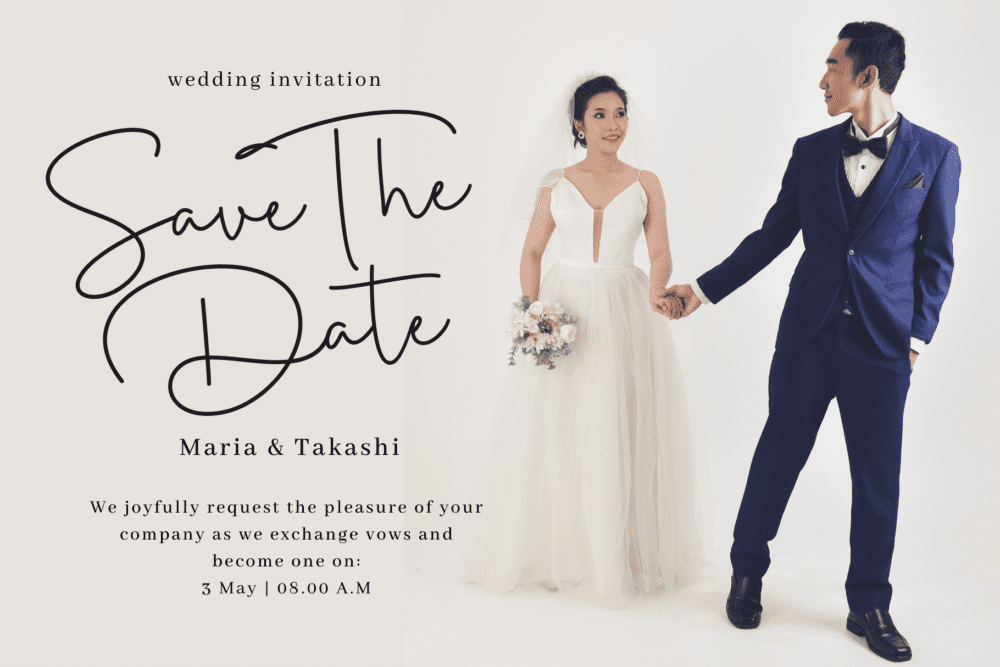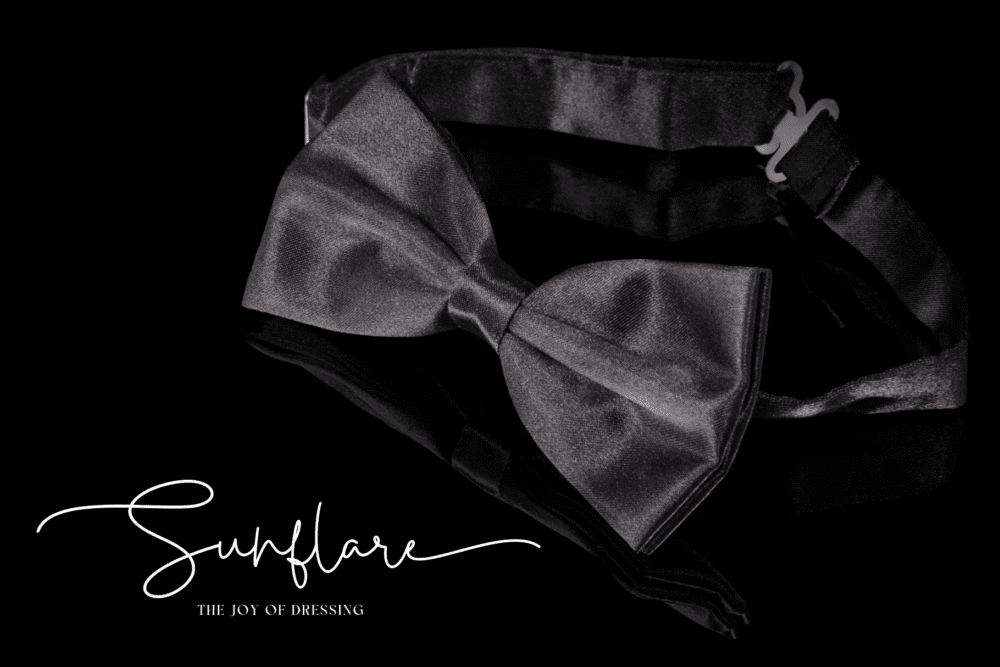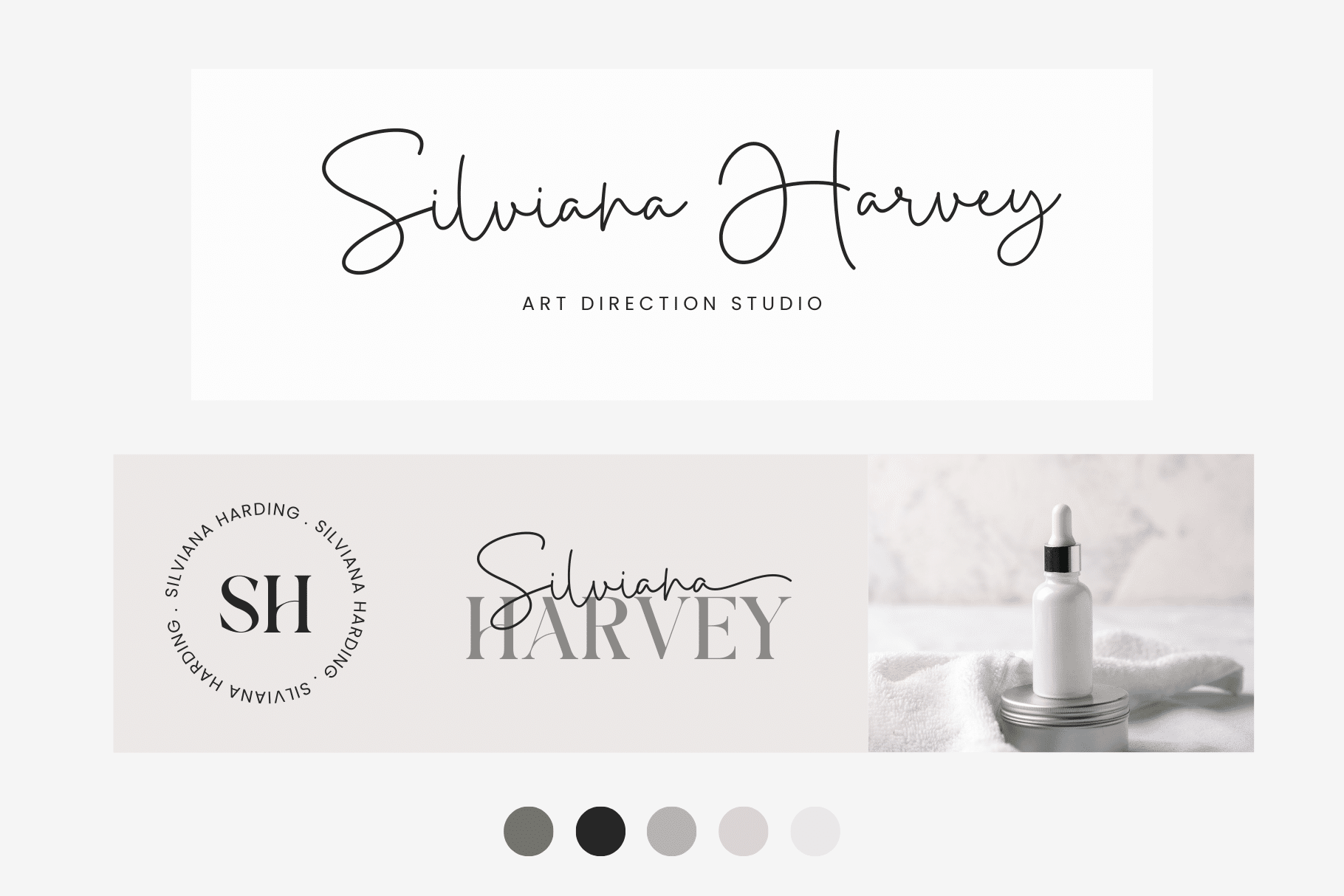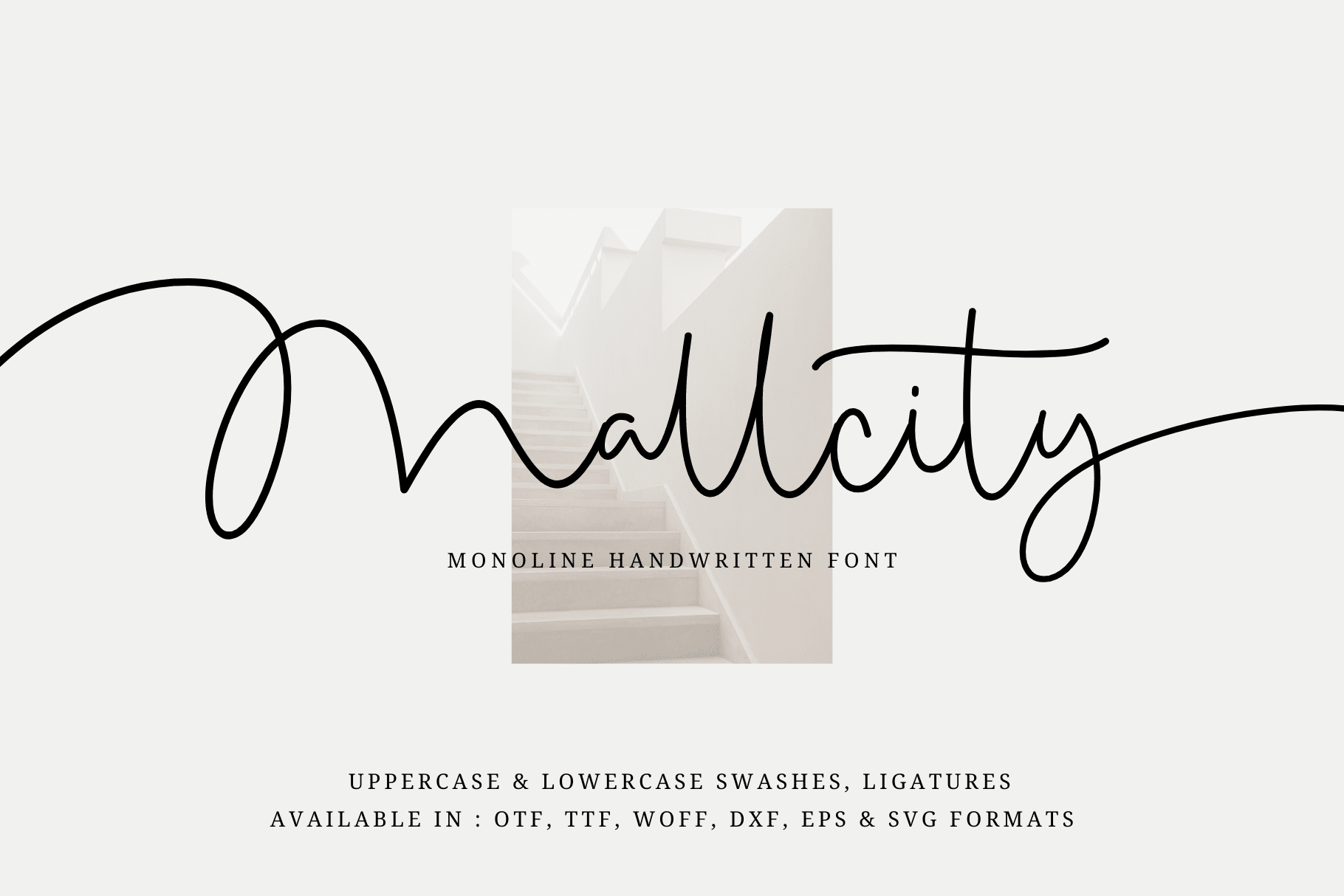
Mallcity Font
Mallcity is a sophisticated script font with intricate alternates and ligatures, perfect for high-end design projects. Its flowing, curved lines, add a touch of refinement and grace to any text, making it ideal for fashion and luxury brands. The font’s elegant yet modern style is versatile and perfect for those seeking to elevate their design work.